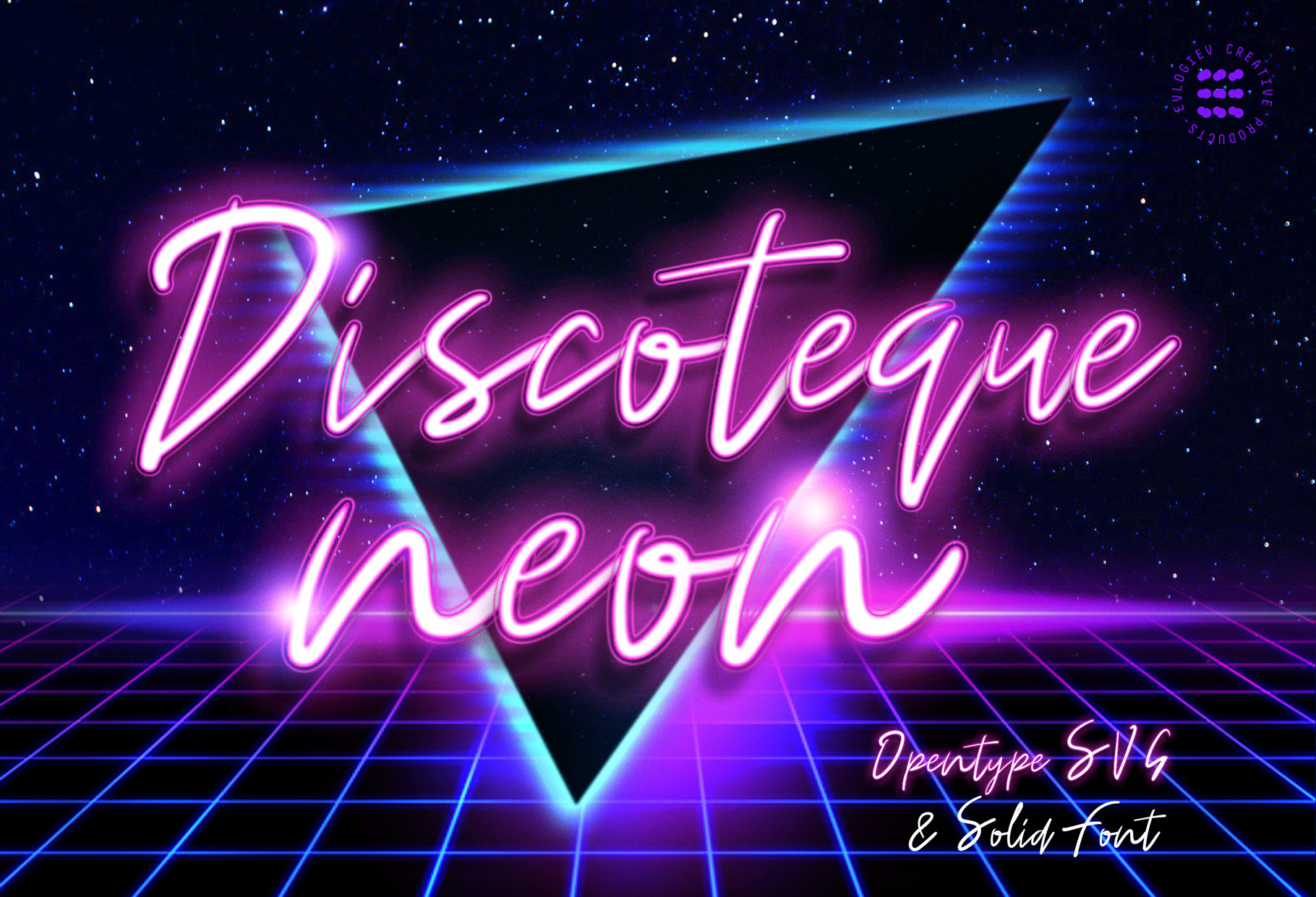
Discoteque Neon Font
Introducing new font "Discoteque" calligraphic script and electro retro style font. The package includes two versions of it. one of them is standard solid otf font which supported by all systems and the second is colorful neon version which is Open SVG font. Discoteque is artistic and modern typeface to use in various projects. The neon version is striking and has a realistic look with glow and drop shadows.